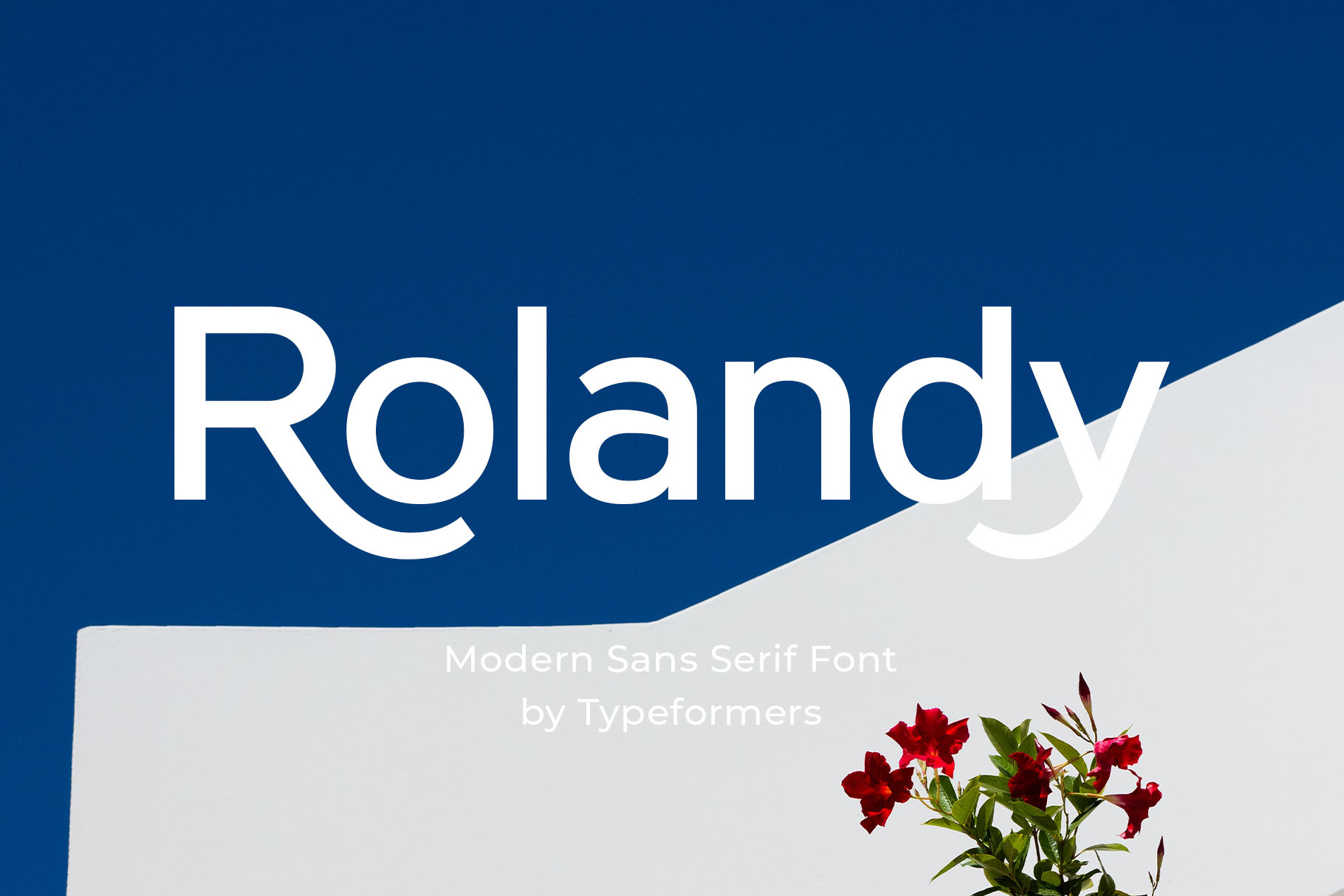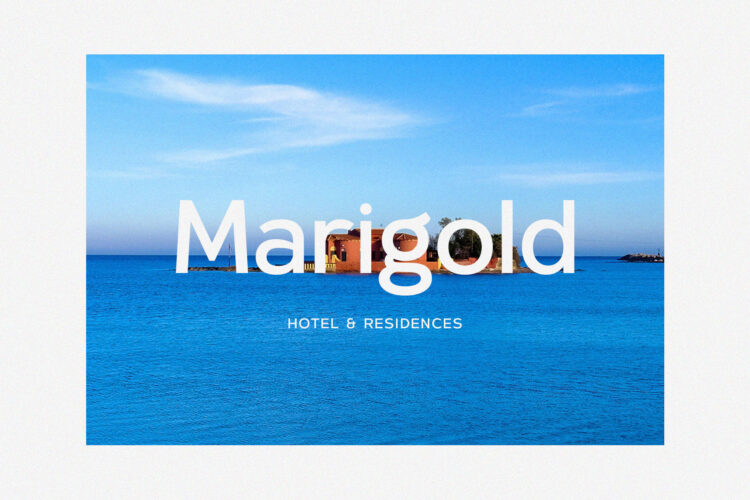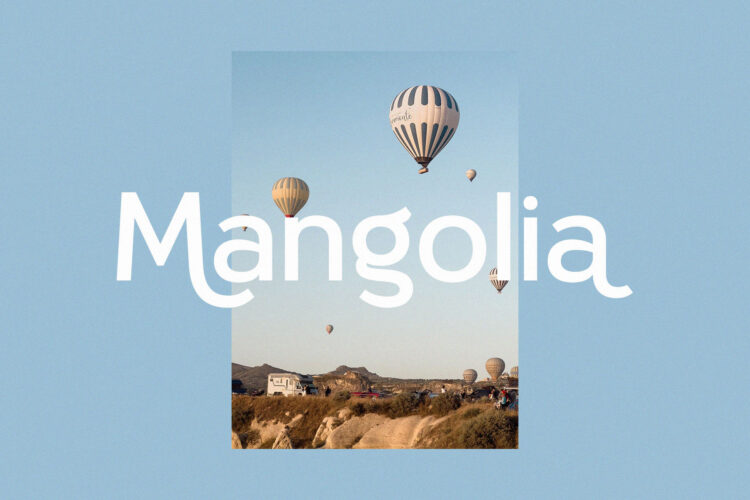
Introducing Rolandy – Modern Sans Serif.
Rolandy is a modern and simple font, best used as a display for headings, logos, branding, magazines, product packaging and invitations.